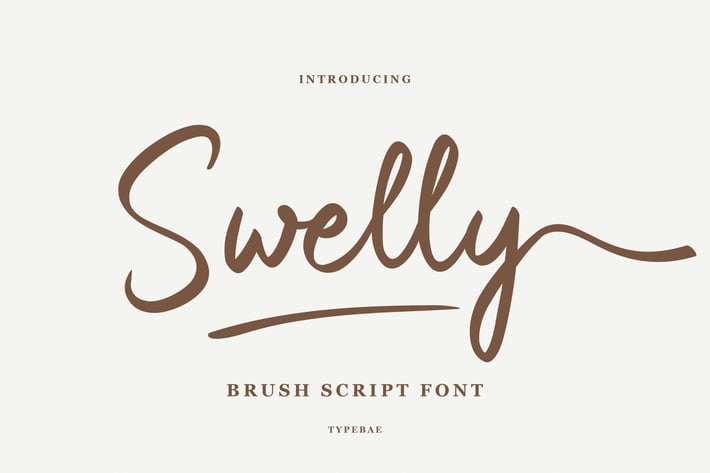
Swelly - Handwritten Brush Script Font
Swelly font is a stunning handwritten brush script font that exudes beauty and elegance. Swelly font is perfect for creating luxurious branding materials, wedding invitations, greeting cards, and other projects that demand a touch of handwritten charm.
Tons of glyphs (include Uppercase, Lowercase, Numerals & Punctuations)
Ligature and Stylistic Set
* Multilingual support